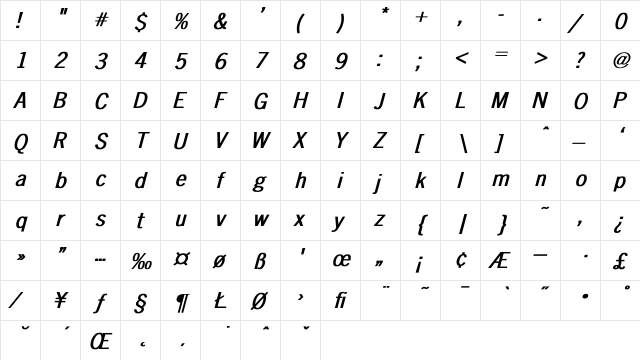
Ice'n-Gothic Bold Italic Regular
Design Context for Ice'n-Gothic Bold Italic Typeface
Ice'n-Gothic Bold Italic has the quiet confidence of well-executed sans-serif typography: versatile, unobtrusive, and dependable at any size. Its italic angle brings a sense of urgency and motion to the letterforms. Its bold stroke weight gives it real presence on the page.
A strong choice for UI design, app interfaces, bold signage, and corporate brand systems.
Font Pairing: Use Ice'n-Gothic Bold Italic for headlines alongside a lighter-weight sans or serif for body copy to establish clear visual hierarchy.
Pro Tip: Pair Ice'n-Gothic Bold Italic with a display or serif font for headlines — its neutral character makes it an excellent supporting player in complex typographic systems.